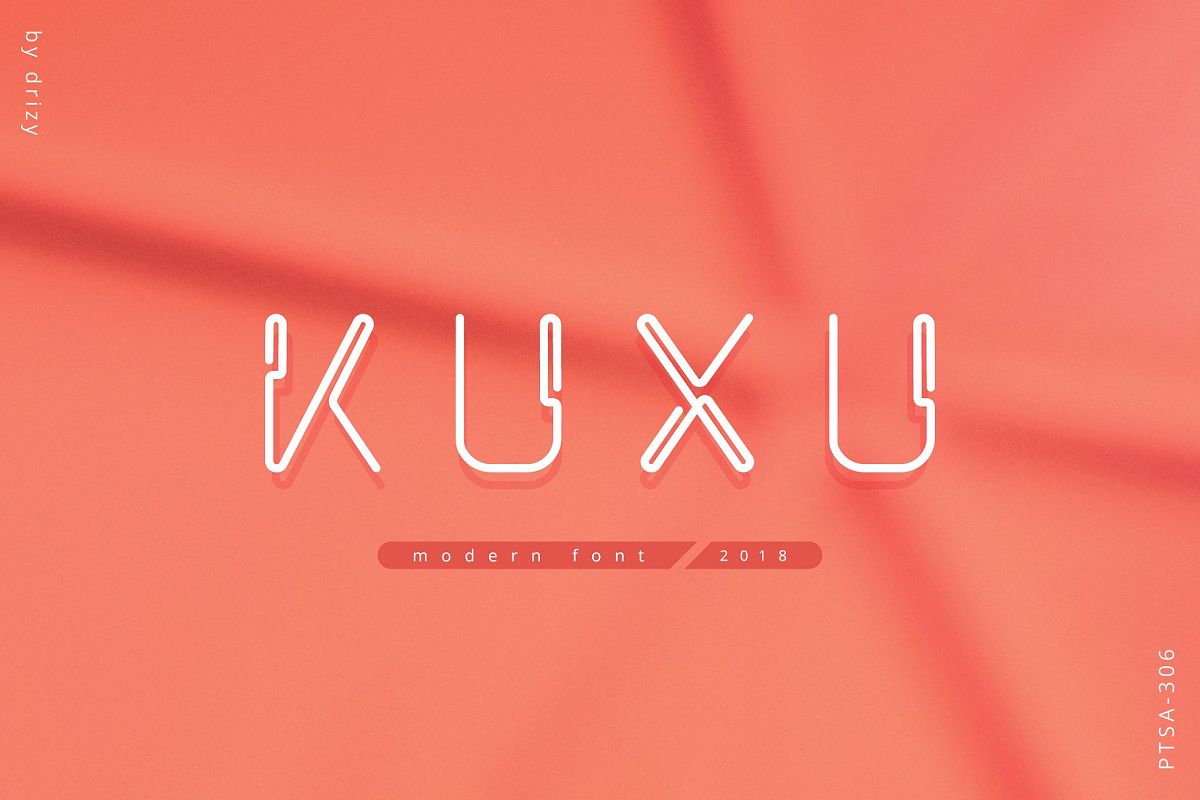
Kuxu
kuxu
Kuxu is a beautiful minimalist modern sans serif that makes logo creation easy! With upper case characters, numbers, multi language and punctuation.
Foreign languages support: ÀÁÂÃÄÈÉÊËÌÍÎÏÐÑÒÓÔÕÖØÙÚÛÜÝ